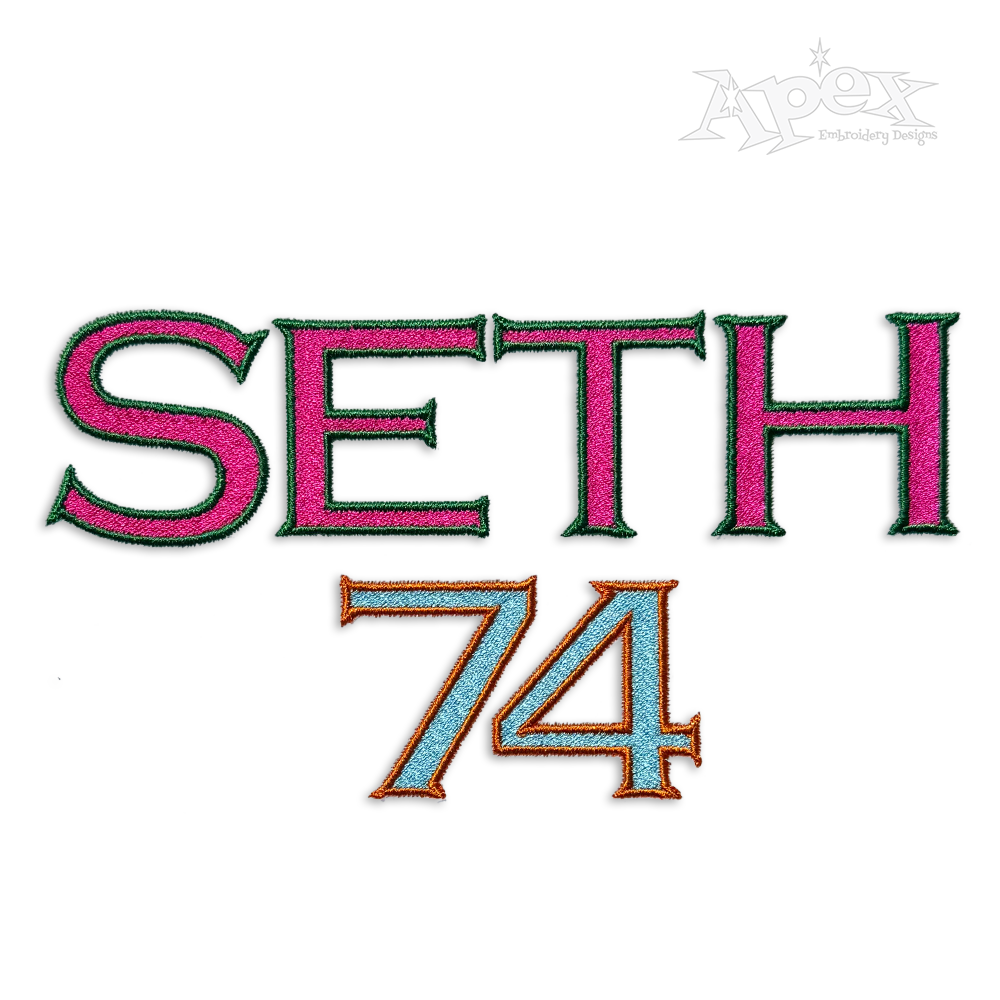
Copperplate two color Embroidery Fonts
Drawing from the timeless mastery of eighteenth-century penmanship and the architectural weight of copper engraving, our Copperplate Two Color embroidery font bridges historic calligraphy and contemporary textile art. When digitizing this collection, we envisioned the distinguished allure of vintage bespoke stationery brought to life through thread. By uniting a soft, light-catching interior fill with an authoritative, hand-guided satin border, this typeface introduces sculptural dimension, chromatic contrast, and refined elegance to every stitch out.
This masterfully digitized collection delivers complete uppercase lettering, lowercase companions, and numeric figures, each engineered with distinct two-color separation to give you full artistic control over your color palettes.
Project Ideas for Copperplate Two Color
The dual-tone construction of this typeface invites expressive color play—from tonal cream-on-ivory understated luxury to high-contrast collegiate navy and metallic gold. Consider these exquisite applications:
- Heirloom Tabletop & Entertaining: Embroider tone-on-tone monograms across hemstitched Irish linen cocktail napkins, runner ends, and formal dinner cloths.
- Bespoke Bridal Accents: Stitch newly minted initials in shimmering silver and pearl silk thread onto bridal dressing gowns, ring bearer pillows, and anniversary keepsakes.
- Luxury Bedding & Bath Linens: Anchor the center of plush percale pillow shams, duvet flanges, and heavyweight terry velour guest towels with generous four- or six-inch motifs.
- Curated Everyday Accessories: Embellish structured canvas boat totes, weekend duffels, and tailored wool resort jackets with sharp, two-color crest monograms.
- Personalized Gifting: Create treasured, custom keepsakes on cashmere baby blankets, velvet travel pouches, and heirloom quilts.
To showcase the distinctive silhouette and layered contouring of Copperplate Two Color, placement should respect the natural balance and drape of your textile:
- Corner Diagonal Placements: For dinner napkins and handkerchiefs, orient the monogram diagonally across the point, positioned 1.5 to 2 inches up from the corner hem for a balanced, classic drape.
- Center Chest & Appliqué-Style Anchors: On robes, sweatshirts, and bespoke outerwear, position the design 3 to 4 inches down from the shoulder seam collar juncture, centered precisely along the visual chest line.
- Cuff & Hem Accents: Utilize the 1.25-inch scale on dress shirt cuffs (centered half an inch above the cuff edge) or along the bottom corner of an artisan apron band.
- Pillow & Throw Borders: Set the larger 4-inch or 6-inch letters at the absolute optical center of square toss pillows, or nestled squarely within the borders of a tailored bed runner.
Copperplate Two Color Craft & Letterform Details
Digitizing a two-color letterform requires an exacting balance between thread tension, stitch density, and kinetic movement. Rather than a flat, mechanical outline, each letter in this Copperplate suite is rendered with deliberate anatomical awareness. The inner core is built using a supple tatami fill with staggered penetrations, ensuring the fabric retains a soft hand while reflecting light with rich, smooth saturation.
Encircling that heart is a pristine, high-density satin stitch perimeter. We have meticulously programmed structural underlay beneath the satin borders, locking down the base fibers and pre-compensating for lateral push-and-pull distortion. The result is flawless alignment: the bold, lustrous satin hugs the inner fill cleanly without unsightly gaps or harsh overlap ridges. From the sweeping curves of the capital ascenders to the micro-serif brackets grounding each stem, this font delivers heirloom-worthy clarity that preserves the poetry of hand calligraphy through every revolution of the embroidery needle.